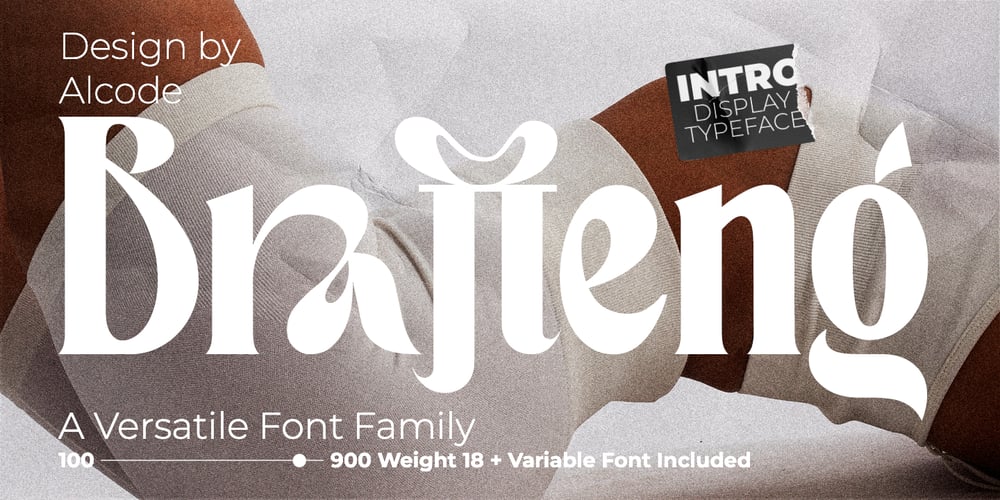
Brafteng
Brafteng font
Brafteng Font Family was designed by Sukjana Almunandar and published by Alcode. Brafteng contains 19 styles and family package options. Brafteng is a new decorative font family. This font has a very beautiful and elegant opentype feature, so it can make users happy and can increase creativity or productivity, you can use this font very easily.Includes: Multiligual Support Special Ligatures Try Brafteng, enjoy the richness of OpenType features and let her fun and elegant excitement make you happy and enhance your creativity! You can use this font very easily.